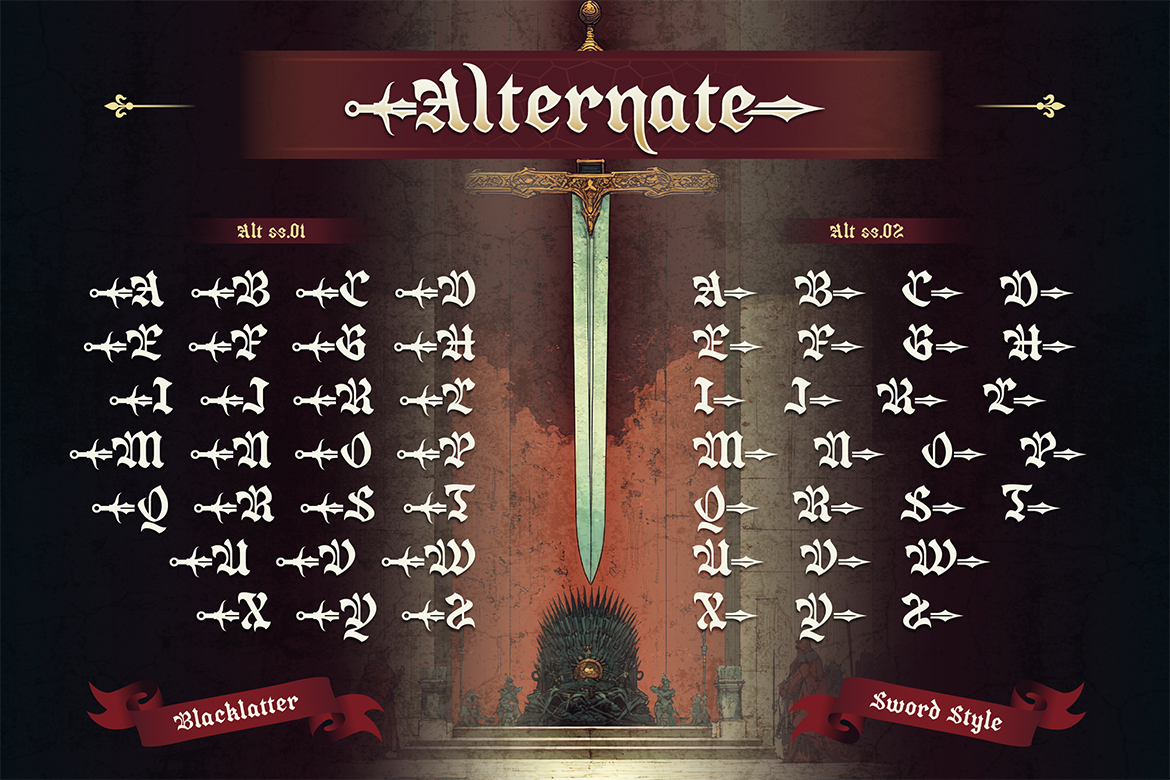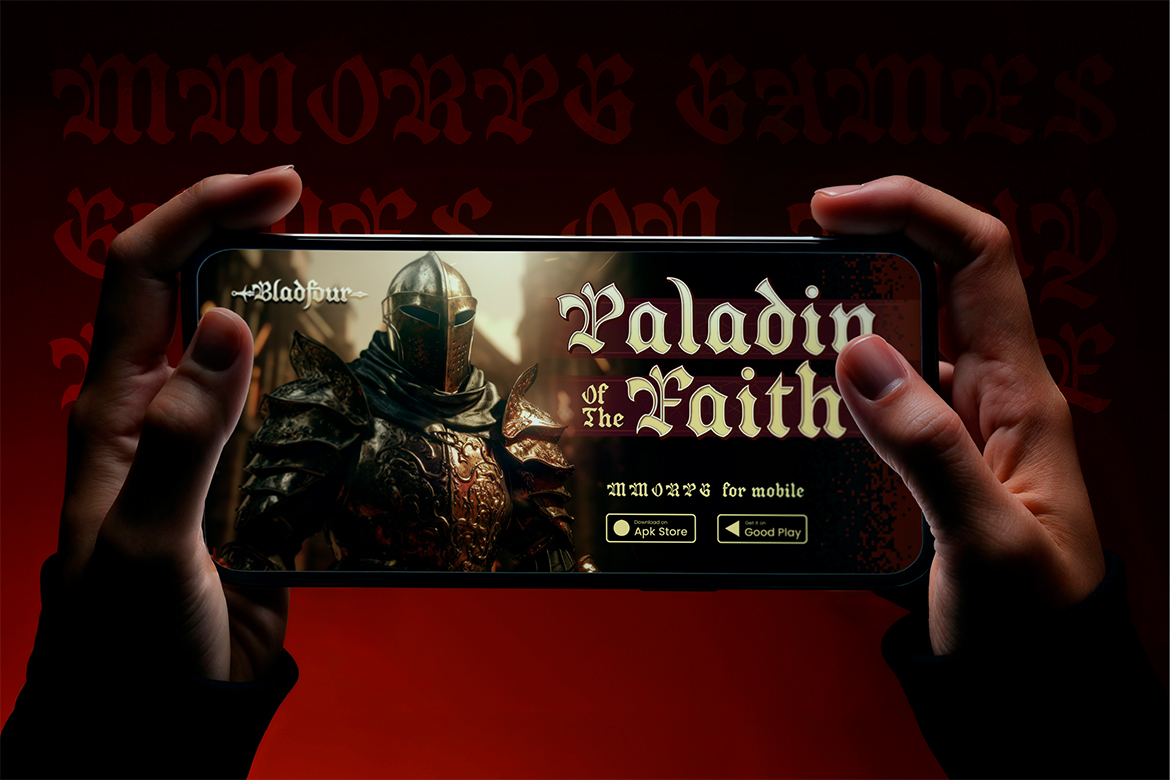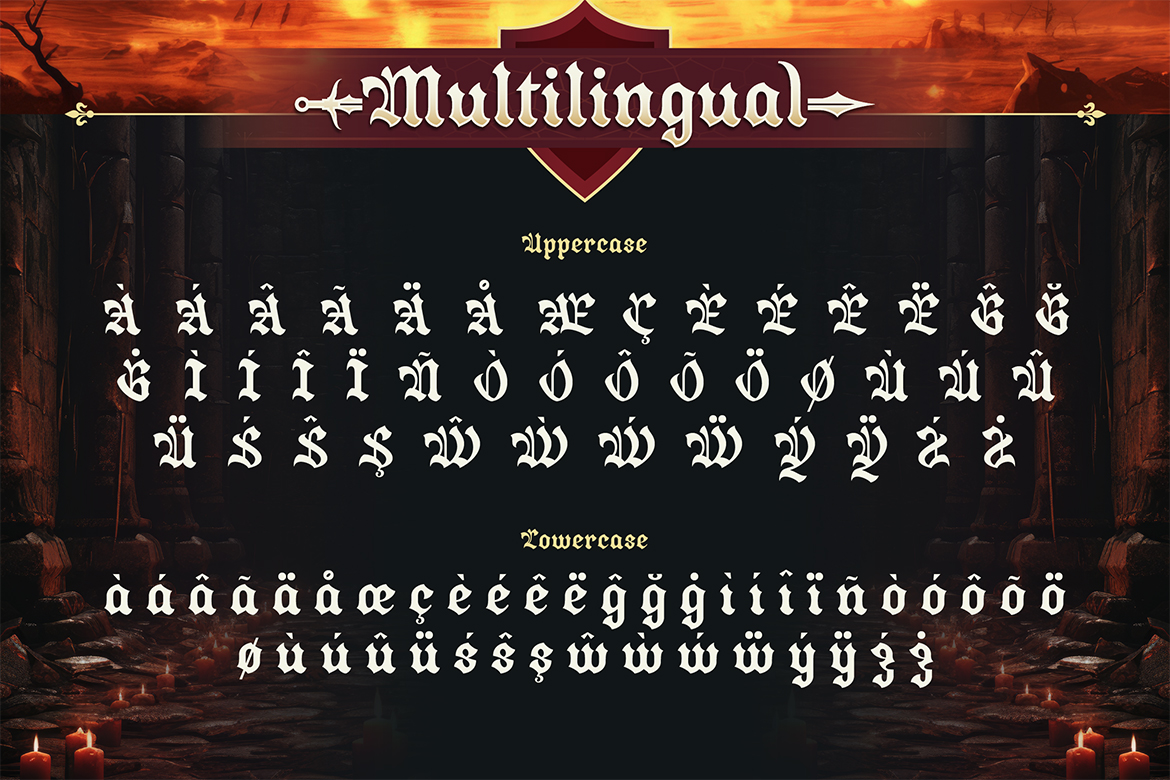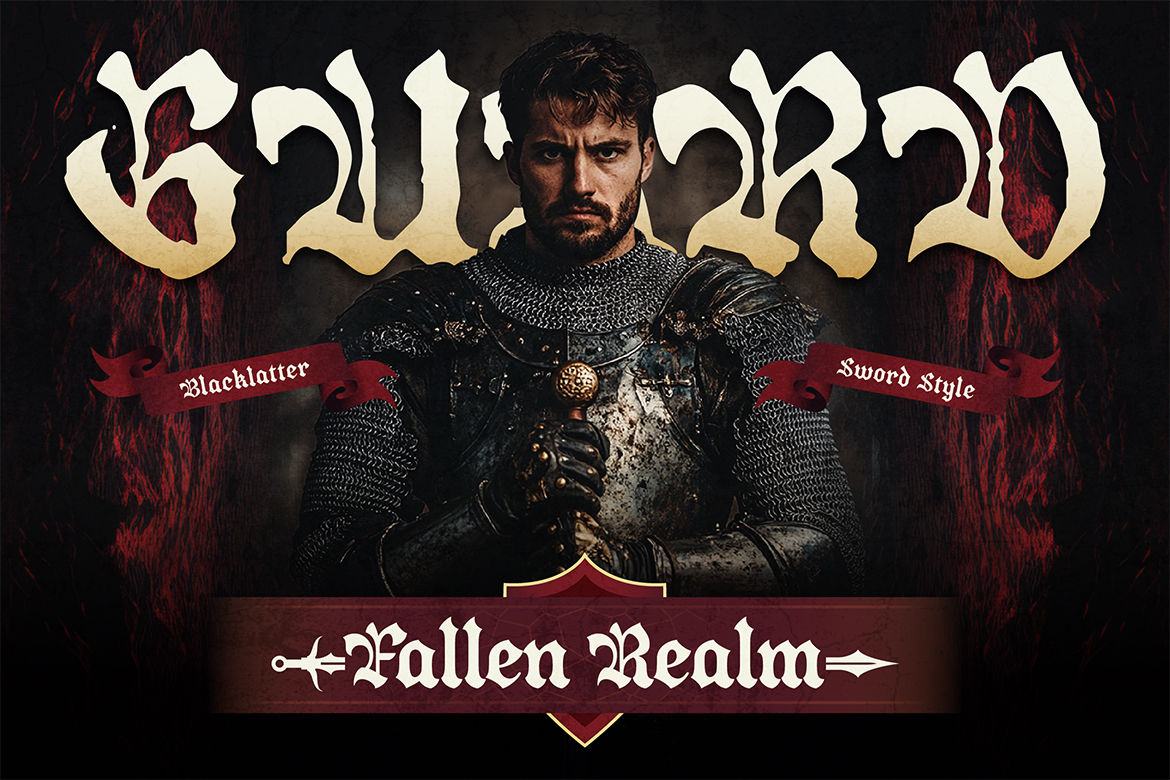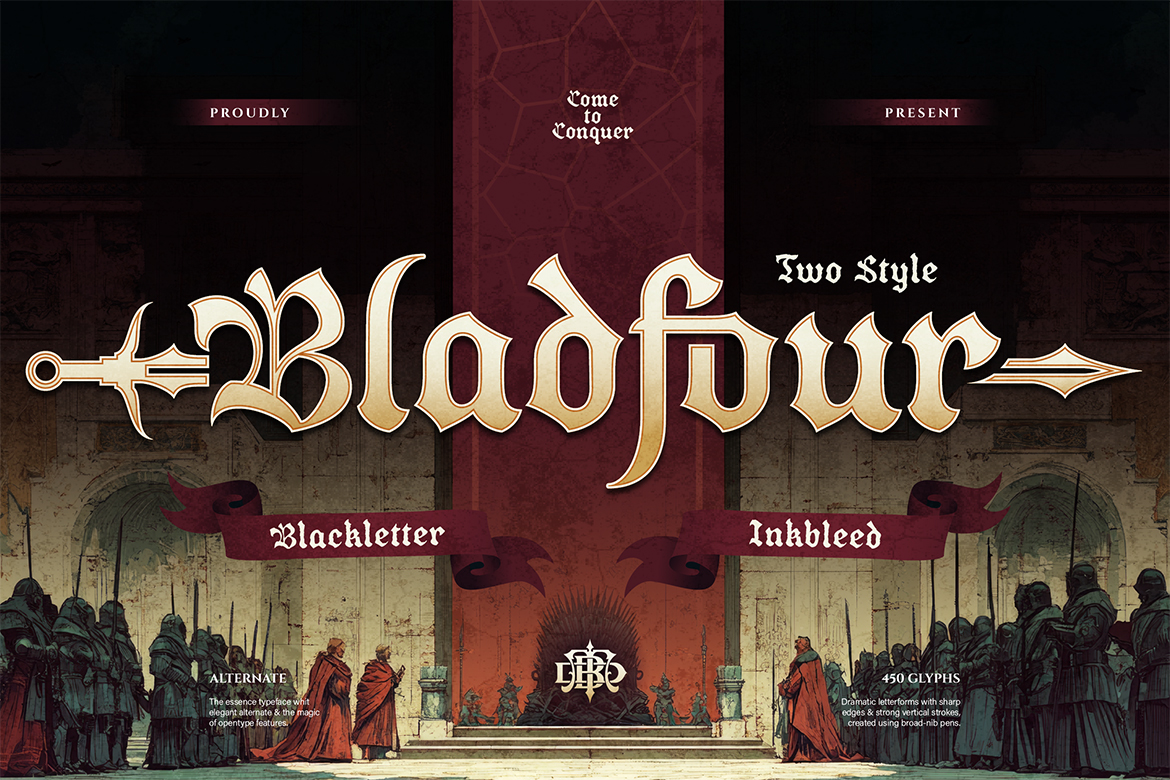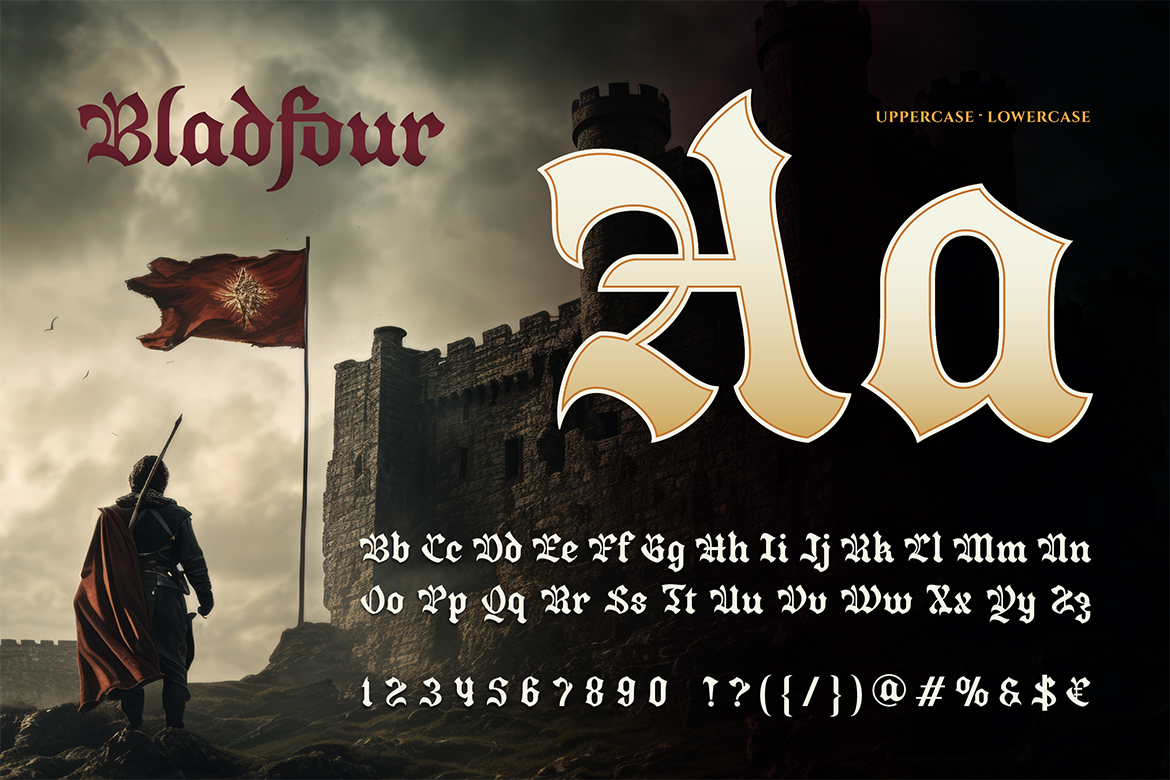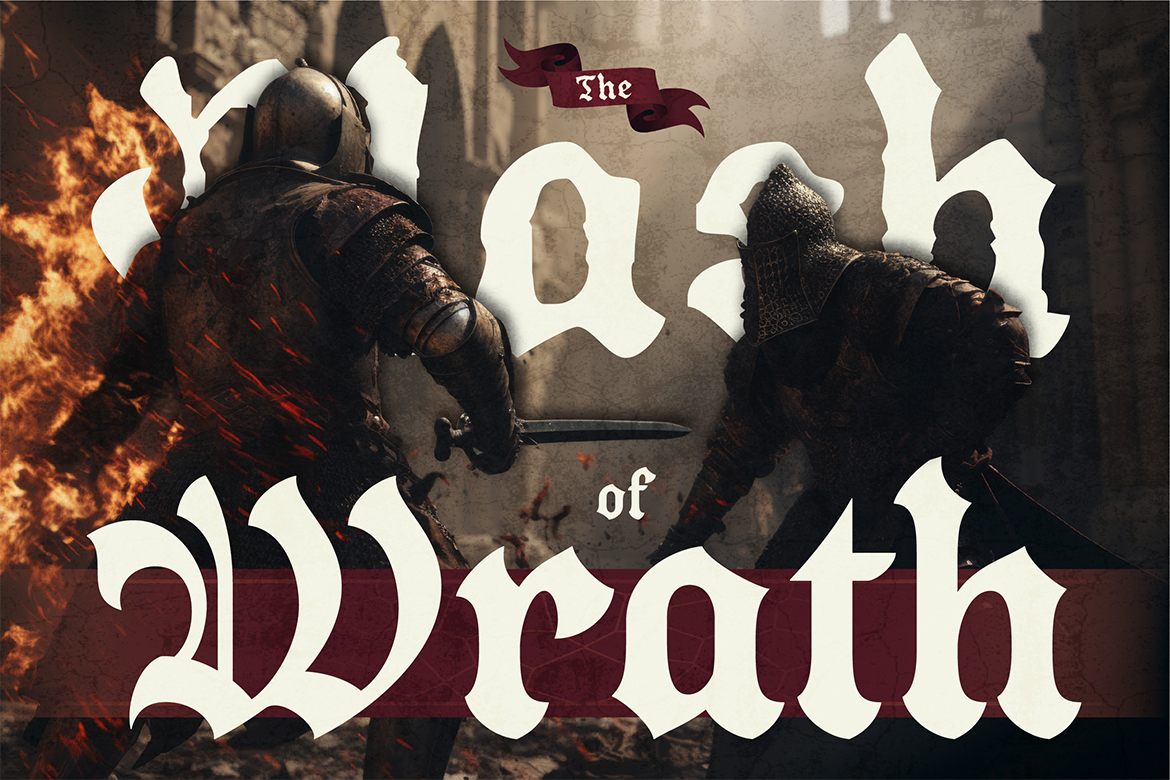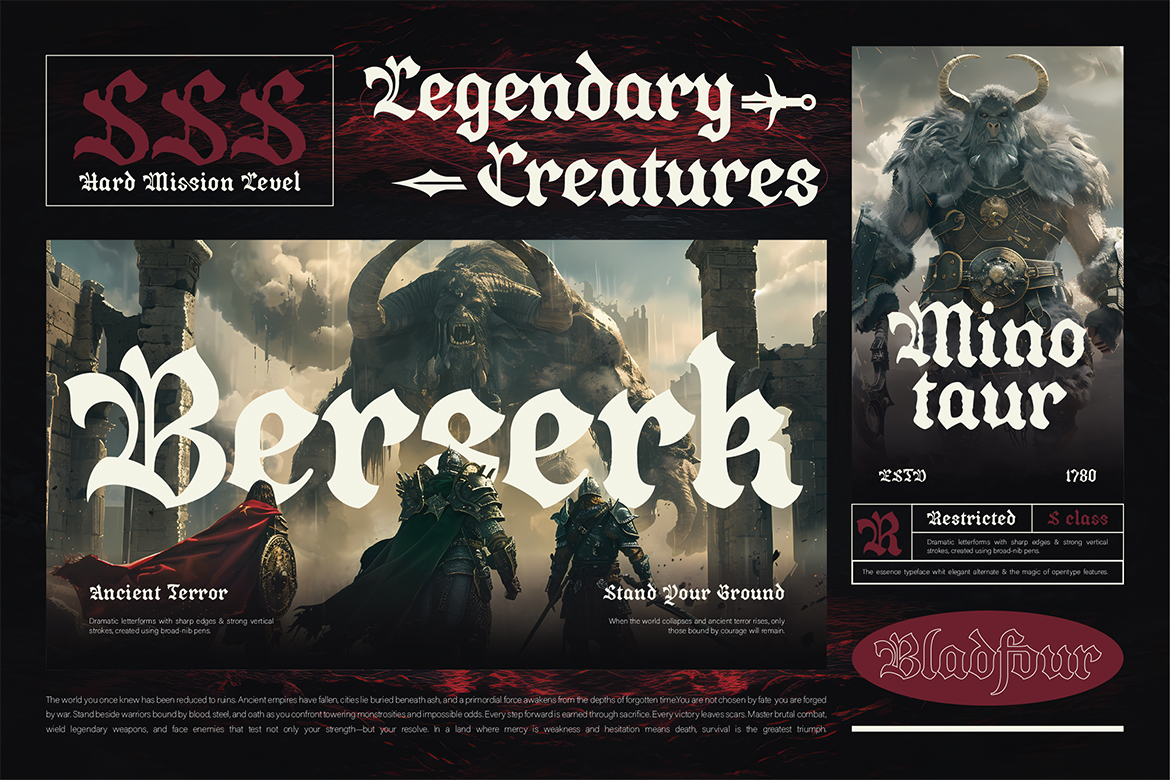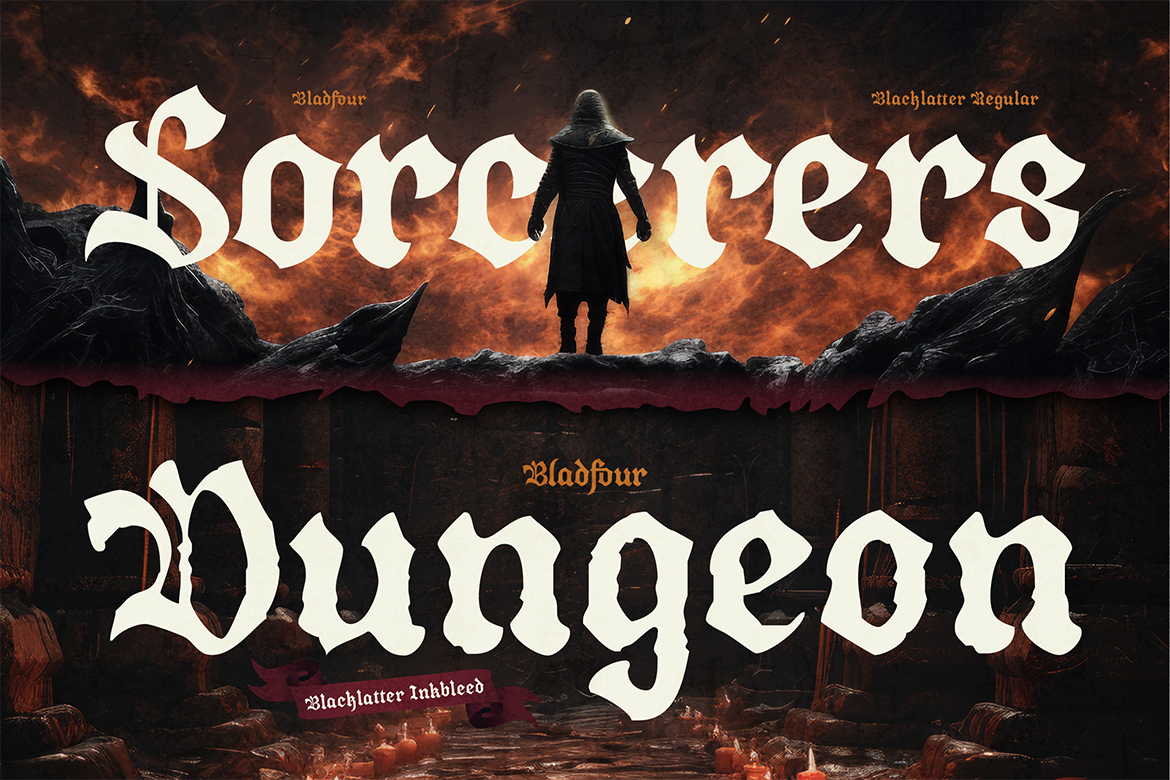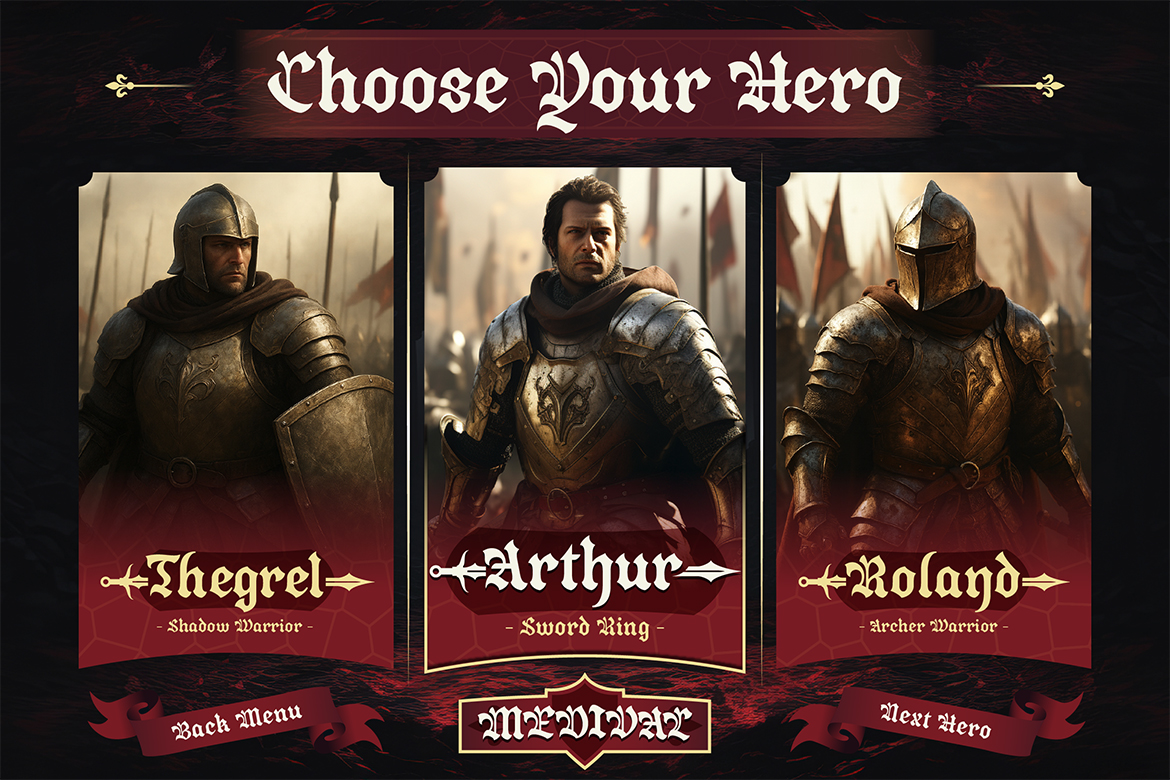
- Bladfour
Bladfour is a powerful blackletter typeface forged for epic stories, dark fantasy worlds, and legendary visuals. Inspired by medieval manuscripts, ancient warriors, and heroic tales, Bladfour brings a bold, commanding presence to every design it touches.
This font comes with two distinctive styles — Blackletter and Inkbleed — allowing you to switch between a clean, sharp look or a raw, ink-soaked texture for a more dramatic and gritty feel. From game titles to fantasy posters, Bladfour instantly delivers a strong medieval atmosphere with cinematic impact.
Designed with carefully crafted details, strong vertical strokes, and classic gothic character shapes, Bladfour works beautifully for fantasy games, movie titles, book covers, branding, posters, logos, and medieval-themed projects. It supports uppercase and lowercase letters, numerals, punctuation, and a wide range of glyphs, making it flexible for both display and headline use.
If you’re looking for a typeface that feels heroic, dark, and legendary — Bladfour is ready to conquer your design battlefield.